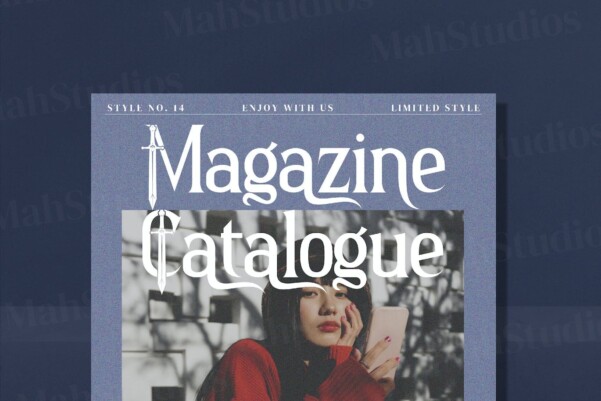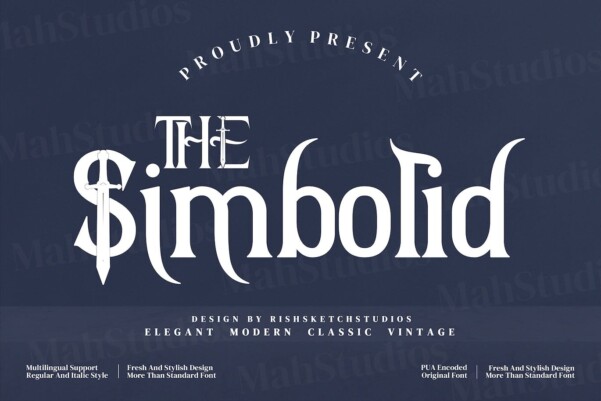
The Simbolid Font
The Simbolid Font – Modern Elegant Serif Font, from MAH Studios, is a premium Serif Font, perfect for any project that requires a distinctive, and premium feel.